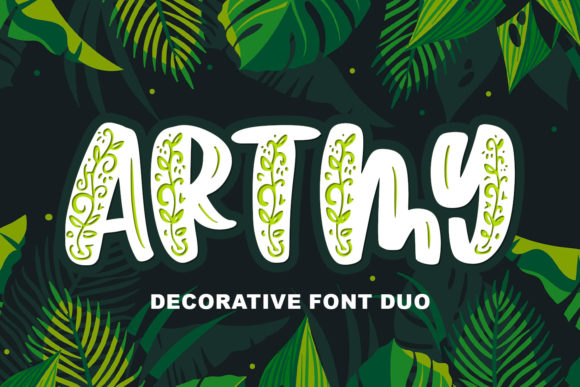
Journey into a whimsical world of boundless creativity with Artmy Font, the delightful duo font that sparks imagination and adds a touch of magic to your designs. This enchanting font, crafted by the skilled hands of Abodaniel, is a symphony of curves and strokes, flowing effortlessly to create captivating visuals that draw the eye and capture the heart.
Adorned with an array of charming characters, Artmy Font dances across the screen, evoking the innocence and joy of childhood. Each letterform is meticulously crafted to exude a playful spirit, inviting you to embark on an adventure of self-expression. Whether you're designing baby onesies, children's games, or whimsical quotes, Artmy Font is your perfect companion, transforming your creations into captivating masterpieces.
Dive into the world of Artmy Font and let your creativity soar. Its versatility knows no bounds, lending itself effortlessly to a multitude of design projects. From eye-catching titles and brand names to captivating book covers and posters, Artmy Font adds a touch of whimsy and delight to every endeavor. Unleash your imagination and watch as your designs blossom into works of art, capturing the hearts of all who behold them.
But Artmy Font is more than just a collection of letters; it's an invitation to embark on a creative journey, to explore the boundless realms of your imagination and bring your visions to life. With its playful spirit and captivating charm, this font transforms the mundane into the extraordinary, turning your designs into cherished keepsakes that evoke memories and spark joy for years to come.
Seize the opportunity to embrace the magic of Artmy Font and watch as your designs take on a life of their own. Let your creativity run wild and create enchanting visuals that captivate and inspire. With Artmy Font as your trusted companion, the possibilities are endless.